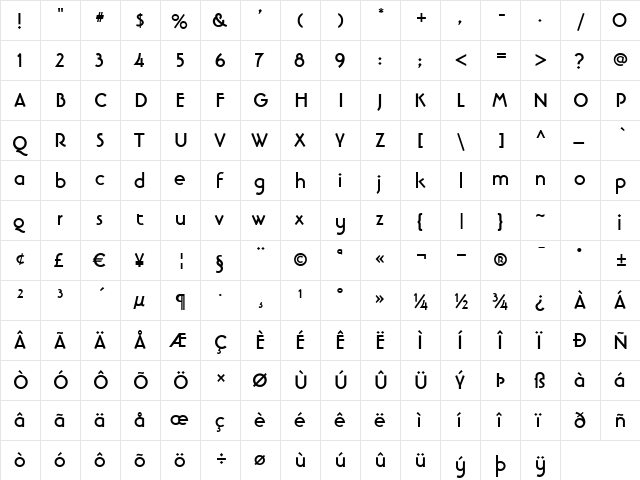
Banjoman Text Bold
Design Context for Banjoman Text Typeface
Banjoman Text offers clean, dependable letterforms without strong stylistic allegiance, making it a practical choice for designers who need flexibility. The heavy weight commands attention and anchors typographic hierarchies.